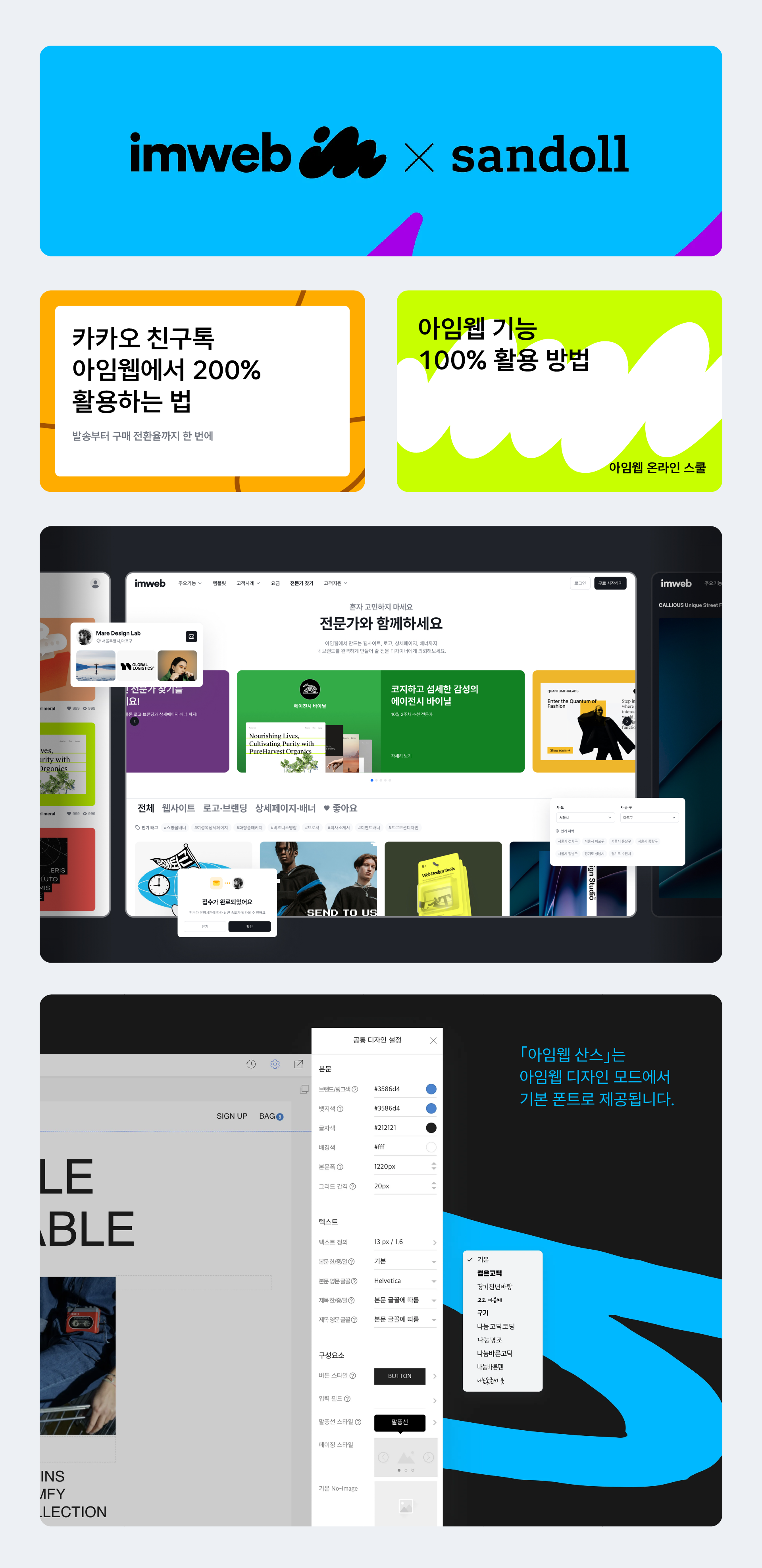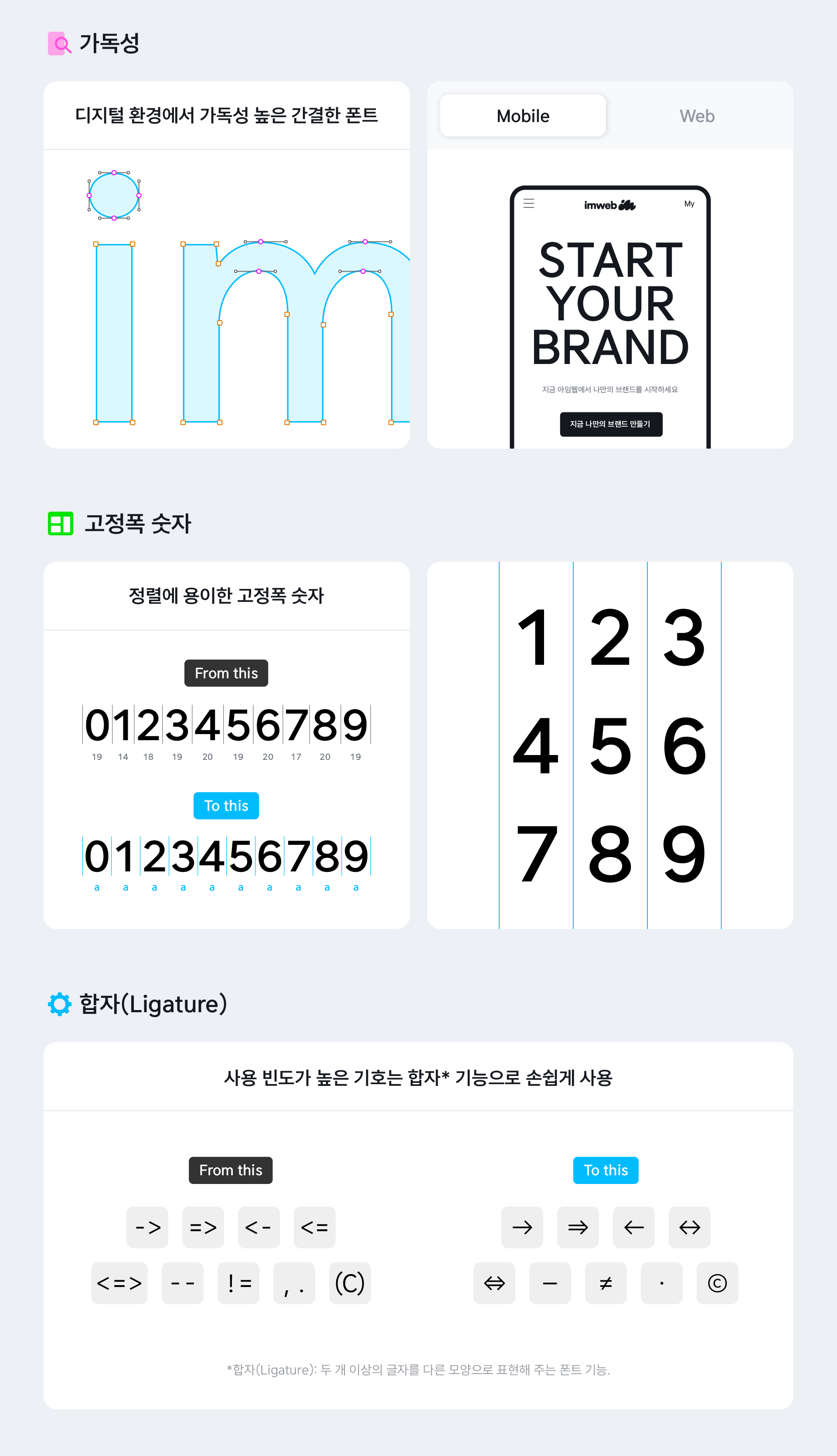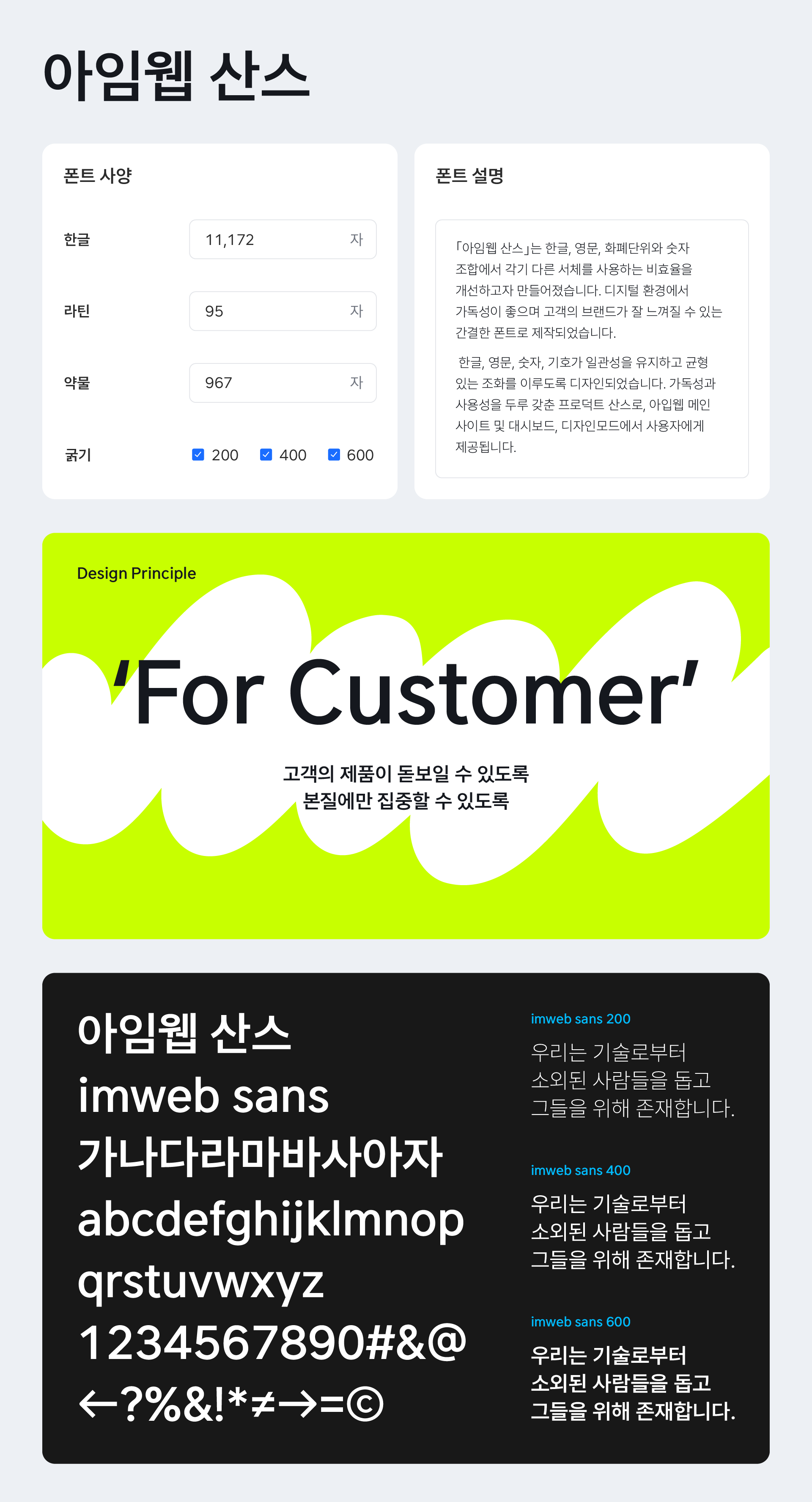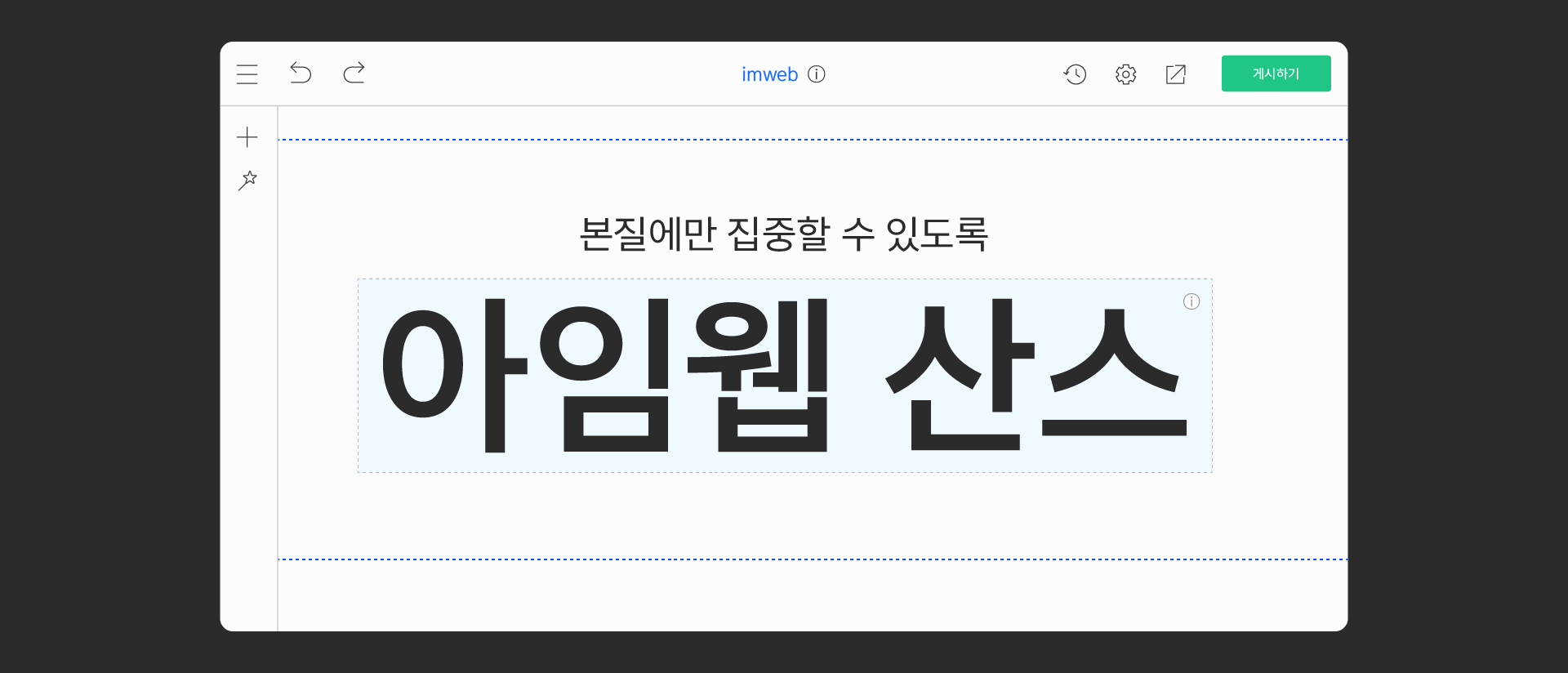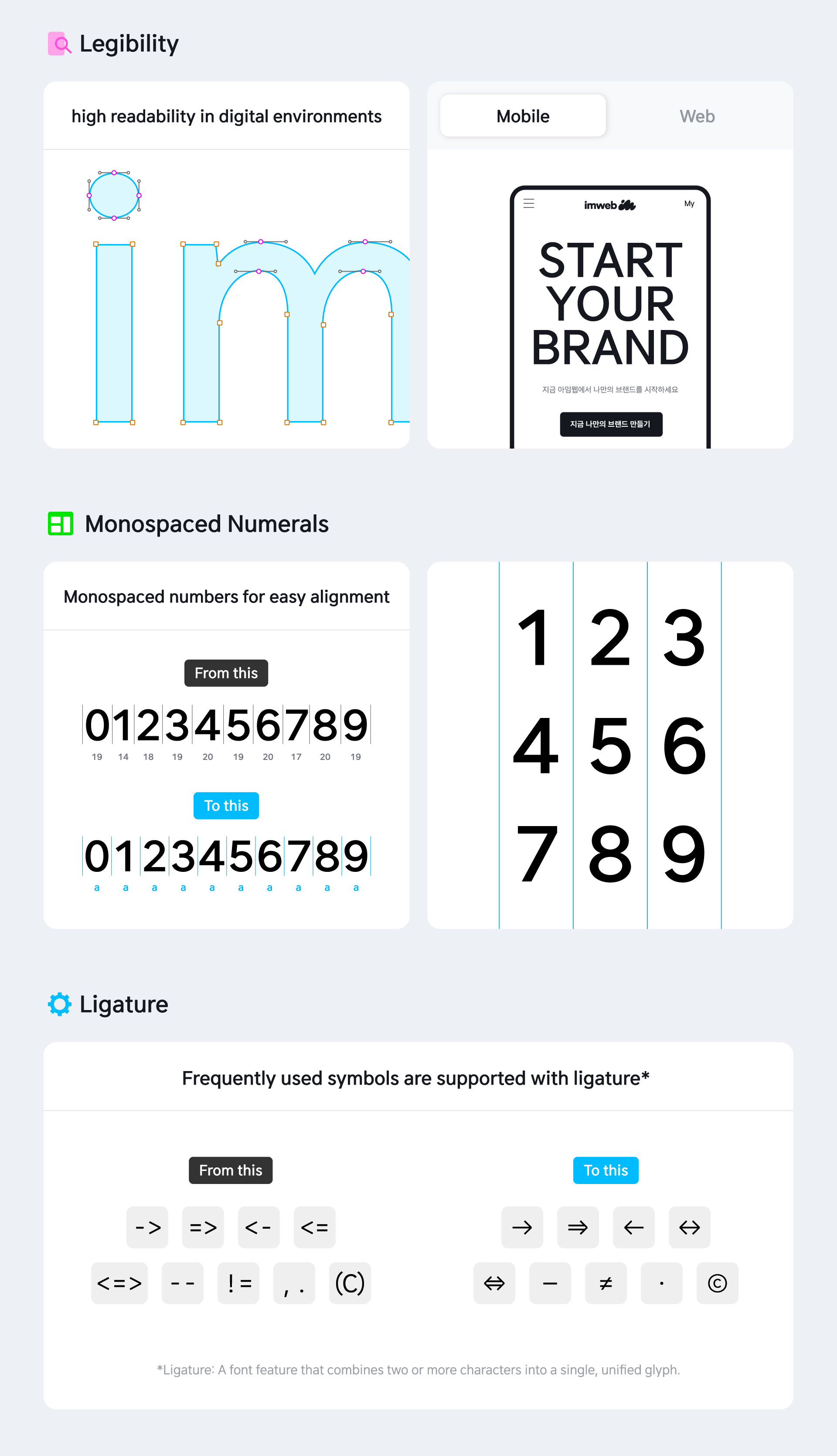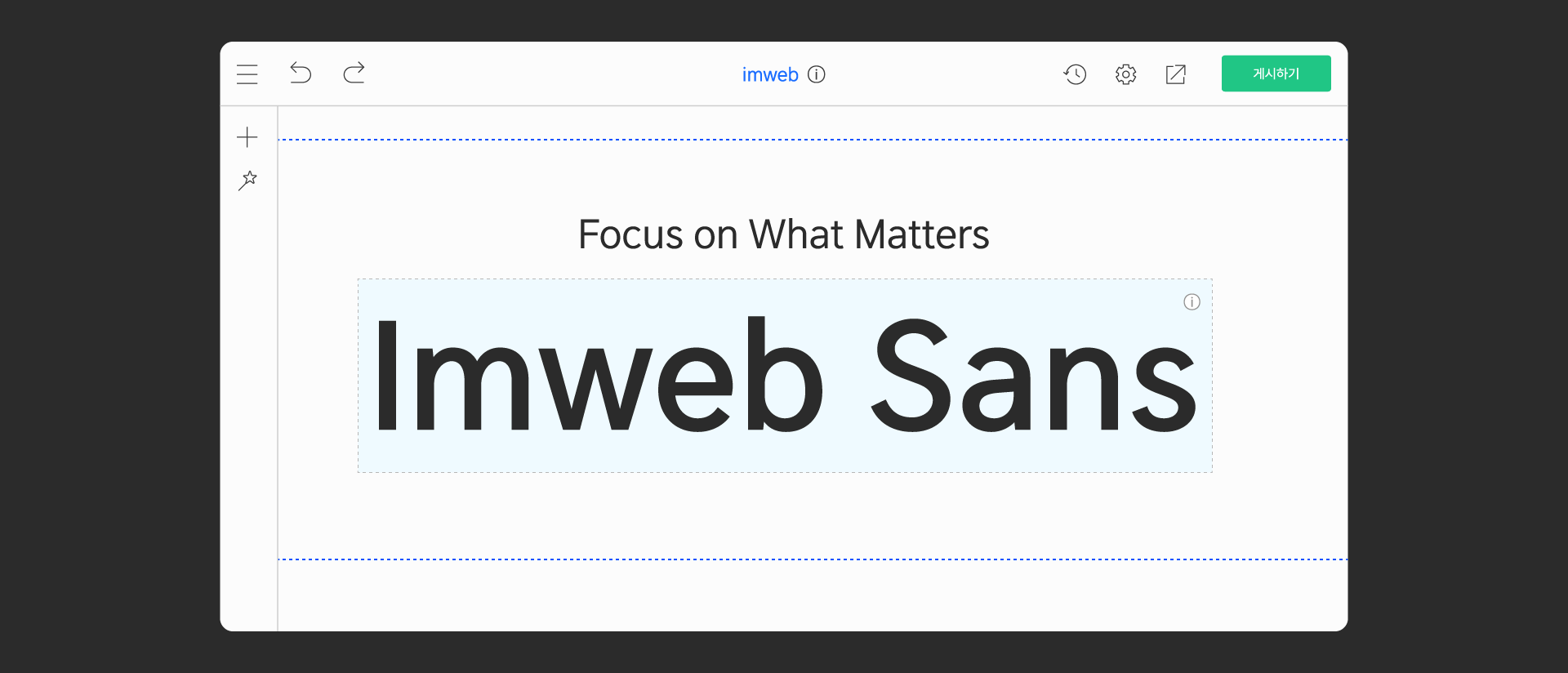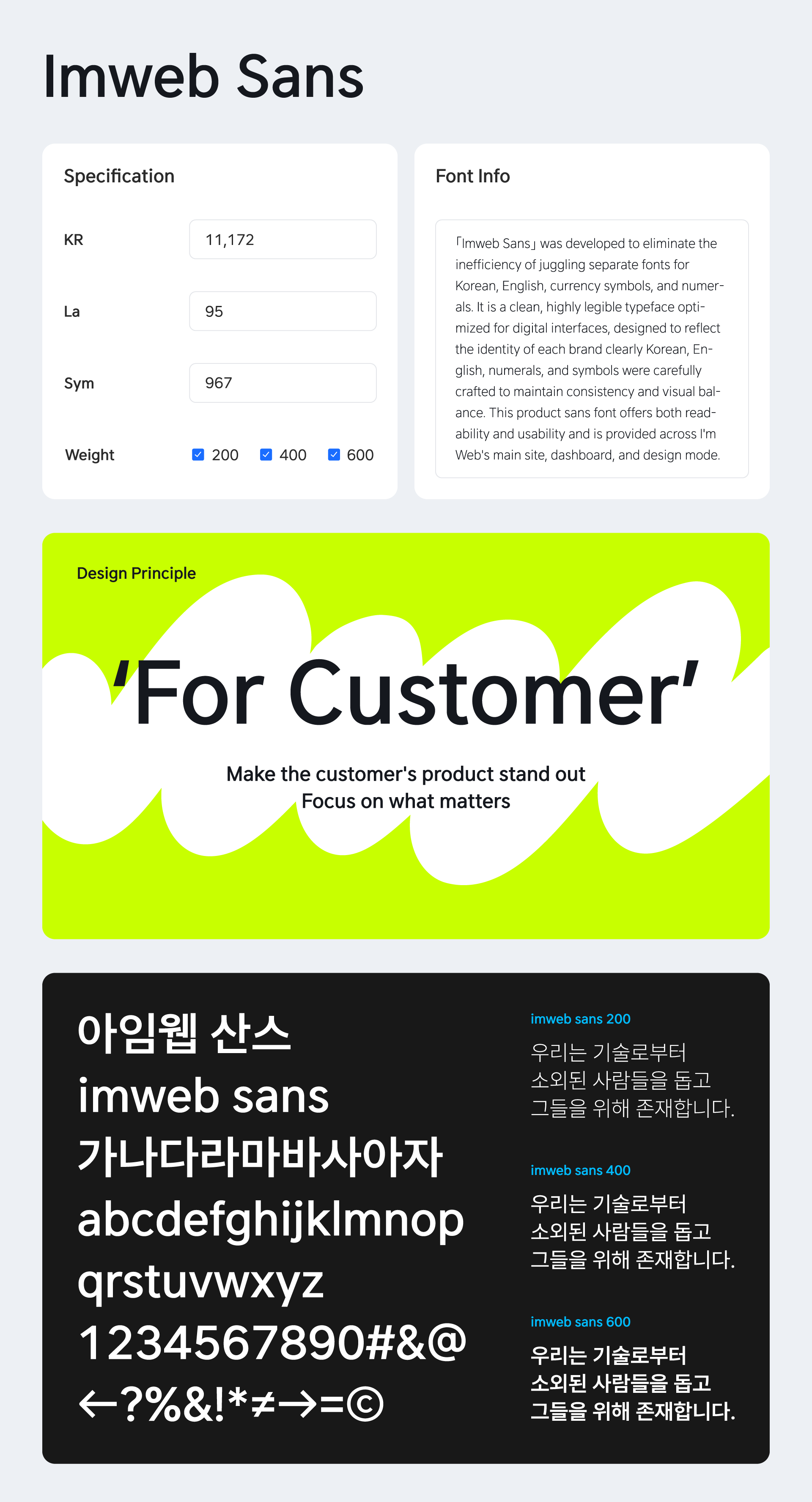
Imweb Sans
ใImweb Sansใ was developed to eliminate the inefficiency of juggling separate fonts for Korean, English, currency symbols, and numerals.
It is a clean, highly legible typeface optimized for digital interfaces, designed to reflect the identity of each brand clearly.
Korean, English, numerals, and symbols were carefully crafted to maintain consistency and visual balance.
This product sans font offers both readability and usability and is provided across I'm Web's main site, dashboard, and design mode.